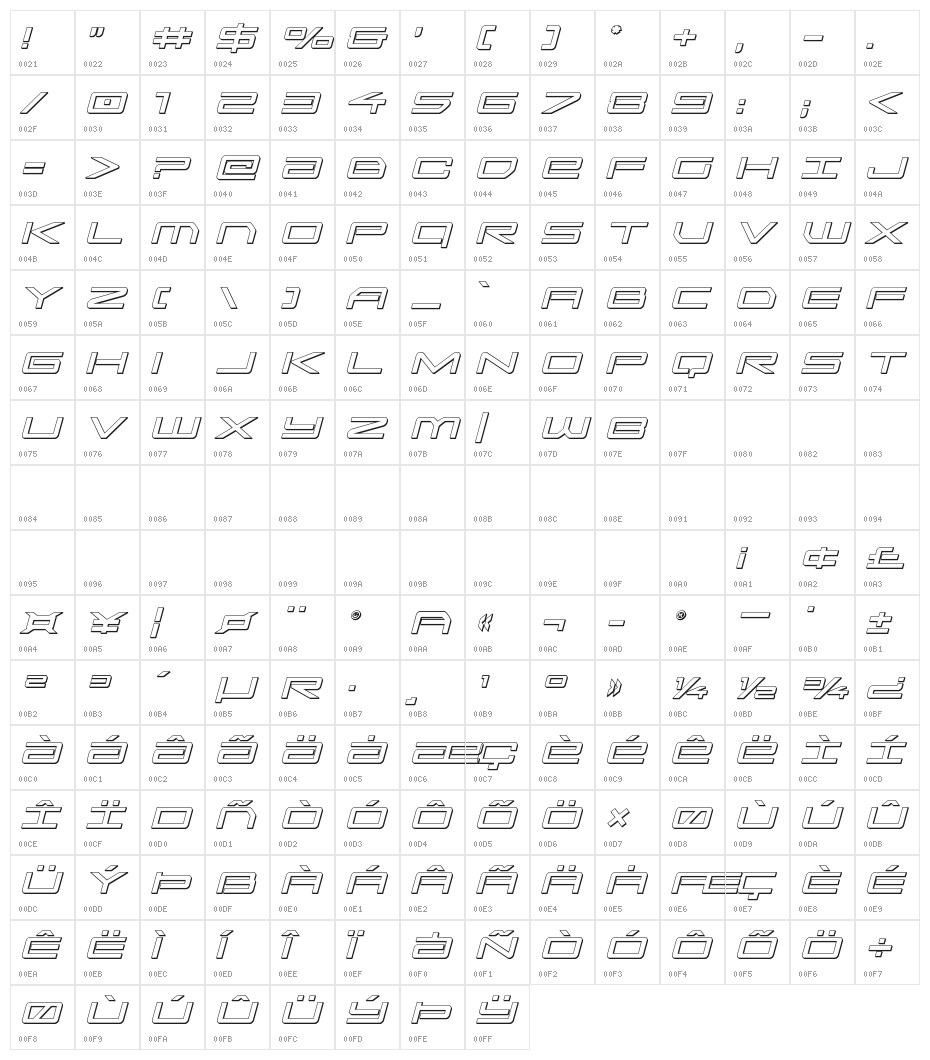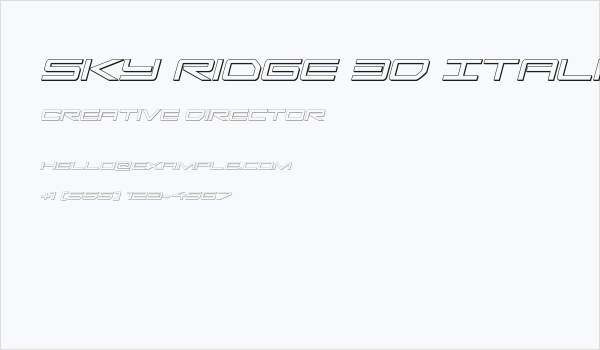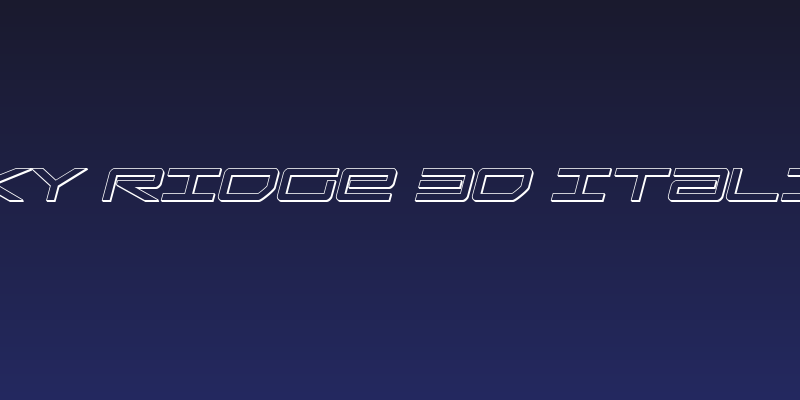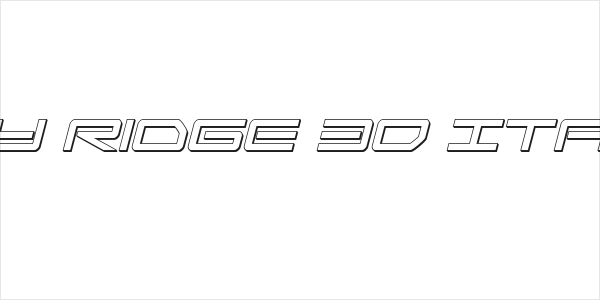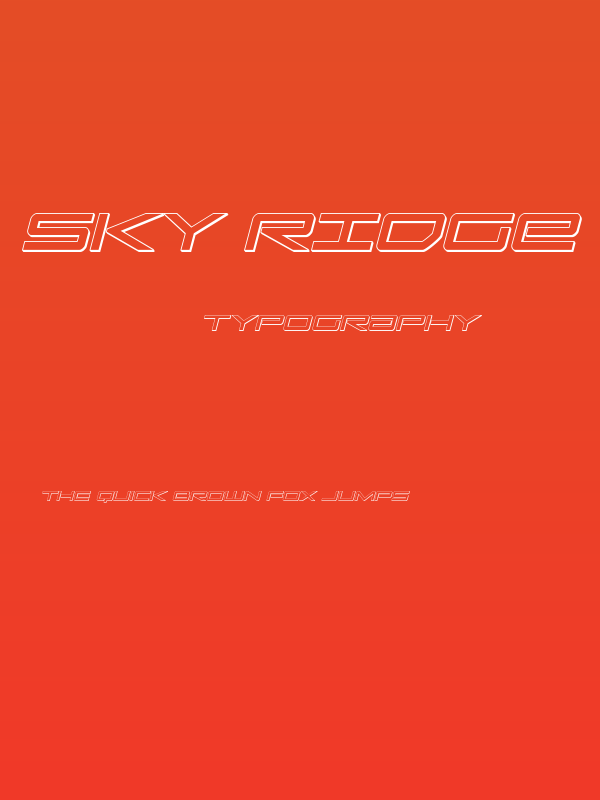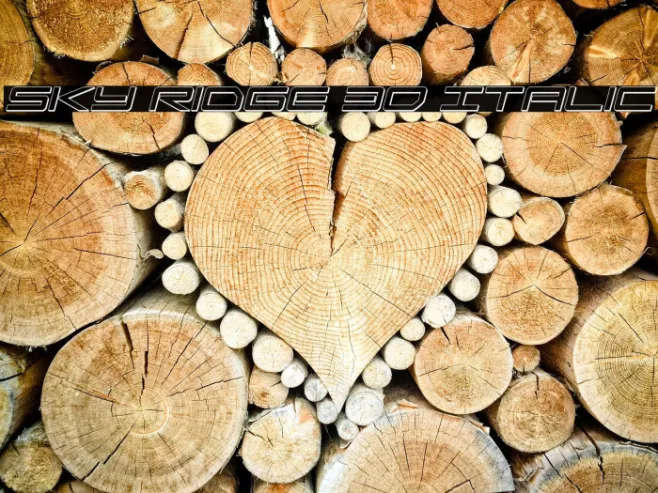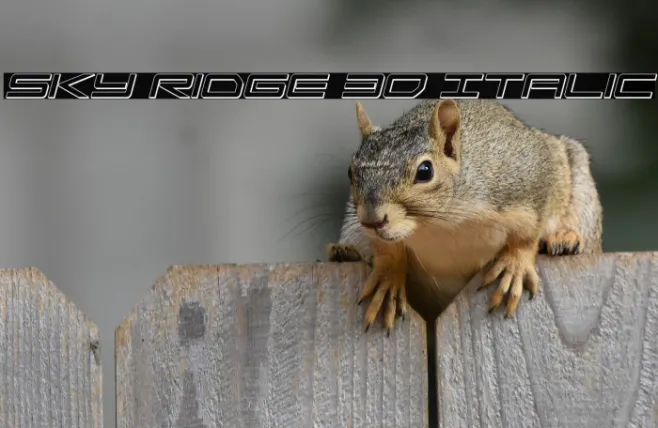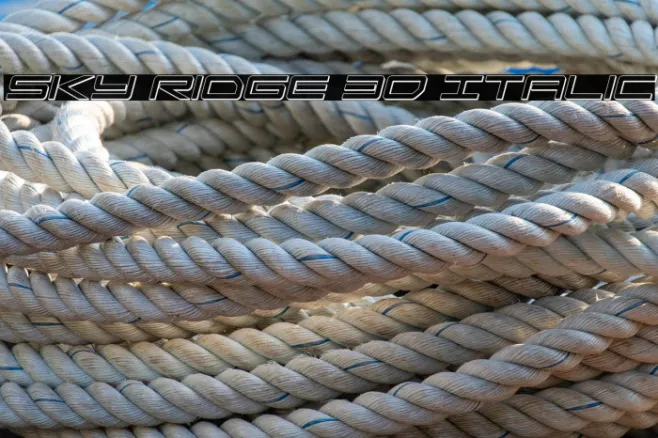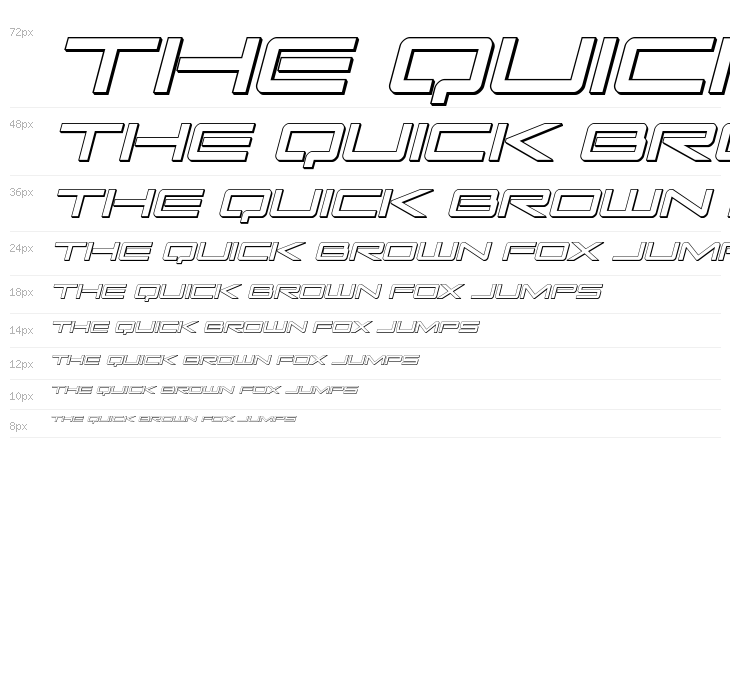
Sky Ridge 3D Italic Font
Sky Ridge 3D Italic Description
This font features a futuristic 3D design with a distinct italic slant, giving it a dynamic and modern appearance. The characters are outlined, creating a sense of depth and dimension. The uppercase and lowercase letters maintain a consistent style, with geometric shapes and sharp angles that enhance its contemporary feel. The numerals and special characters follow the same design principles, ensuring uniformity across all glyphs. This font's unique aesthetic makes it stand out, suitable for projects that require a bold and innovative look.